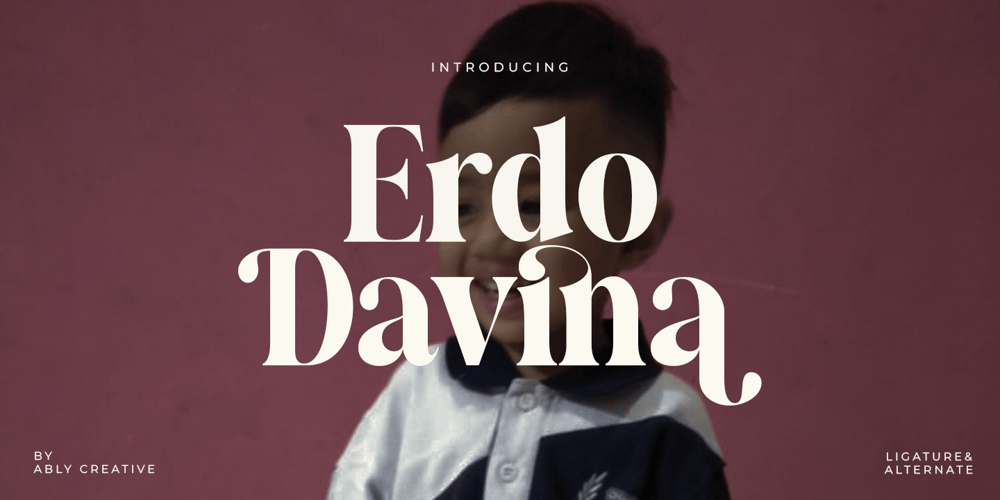
Erdo Davina Font Family was designed by Amrullah Medan, Amrullah, Dedi Purwanto and published by Ably Creative. Erdo Davina contains 1 styles and family package options. Erdo Davina This font is very suitable to be applied in various aspects of design, and your branding. Also, it’s perfect for logos, branding, title, social media posts, advertisements, product packaging, product designs, label, photography, watermark, special event, magazine, web designs, etc.